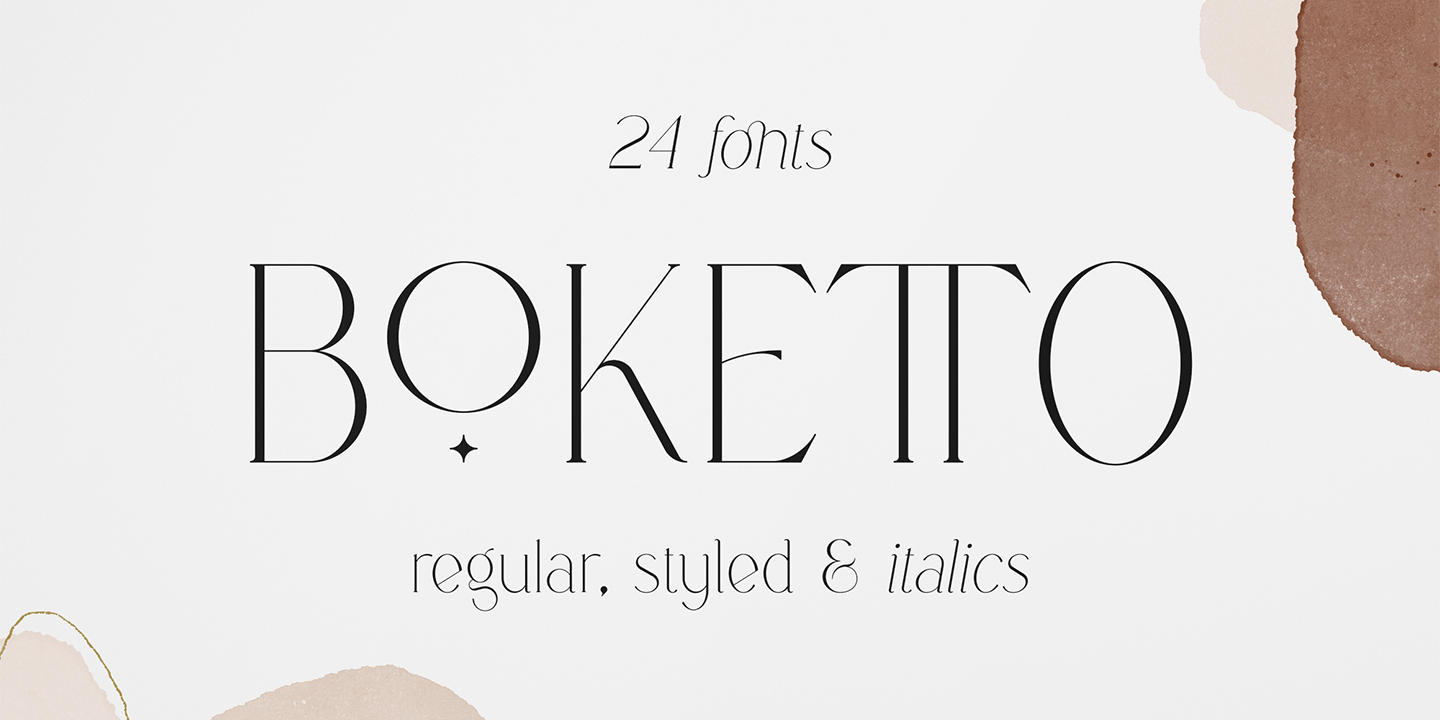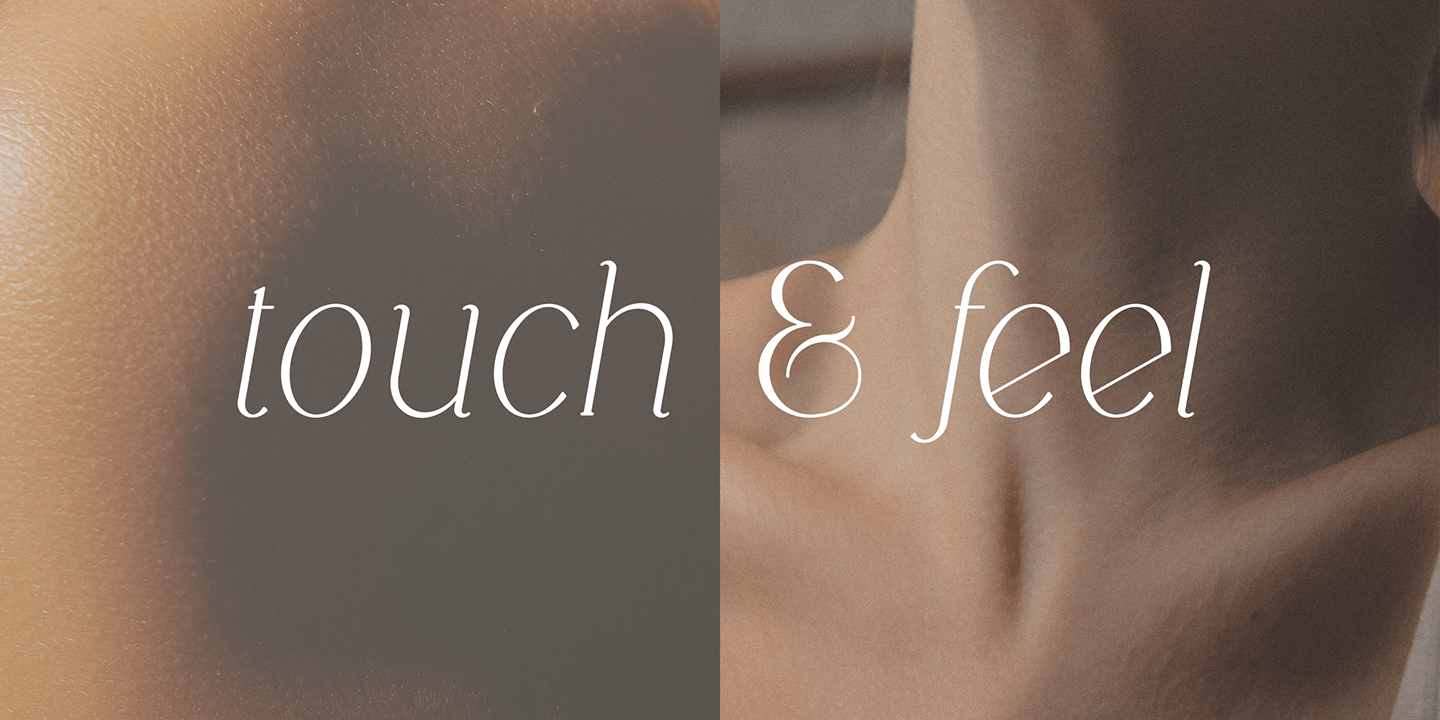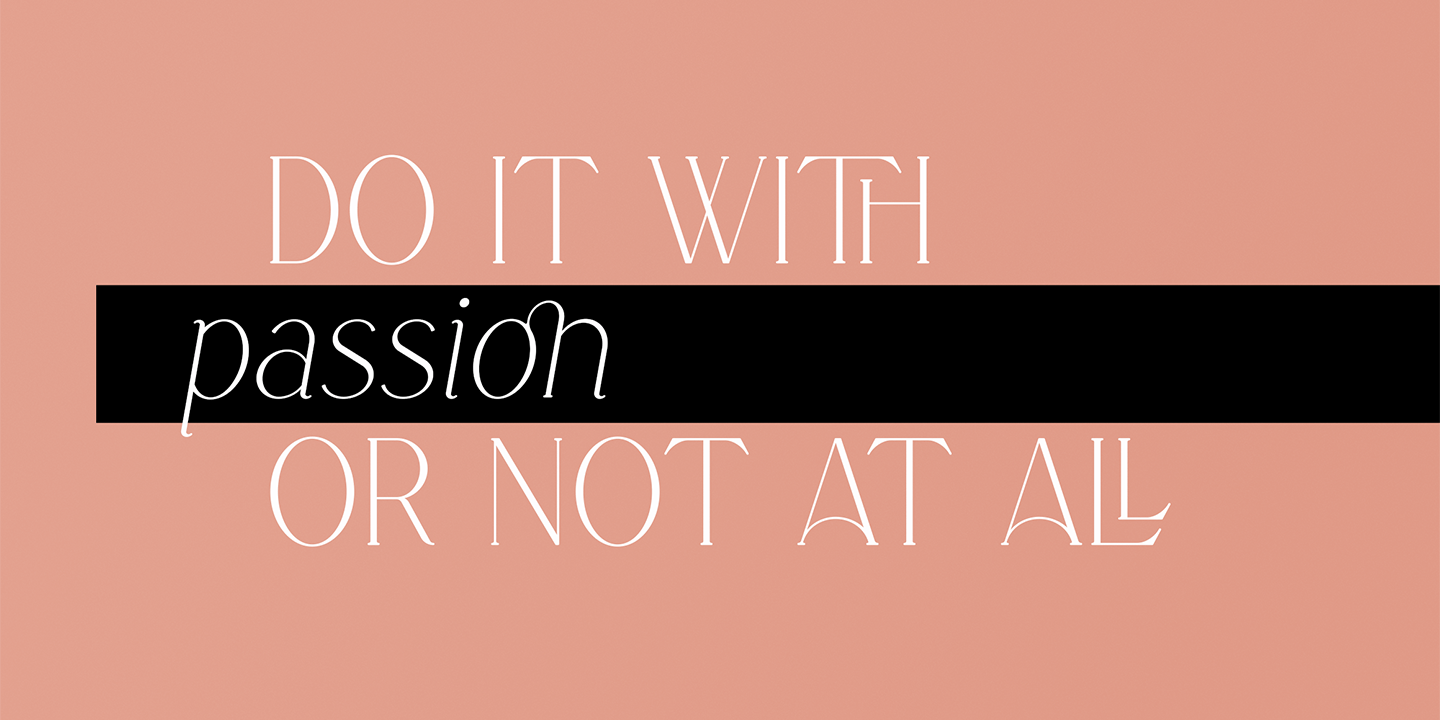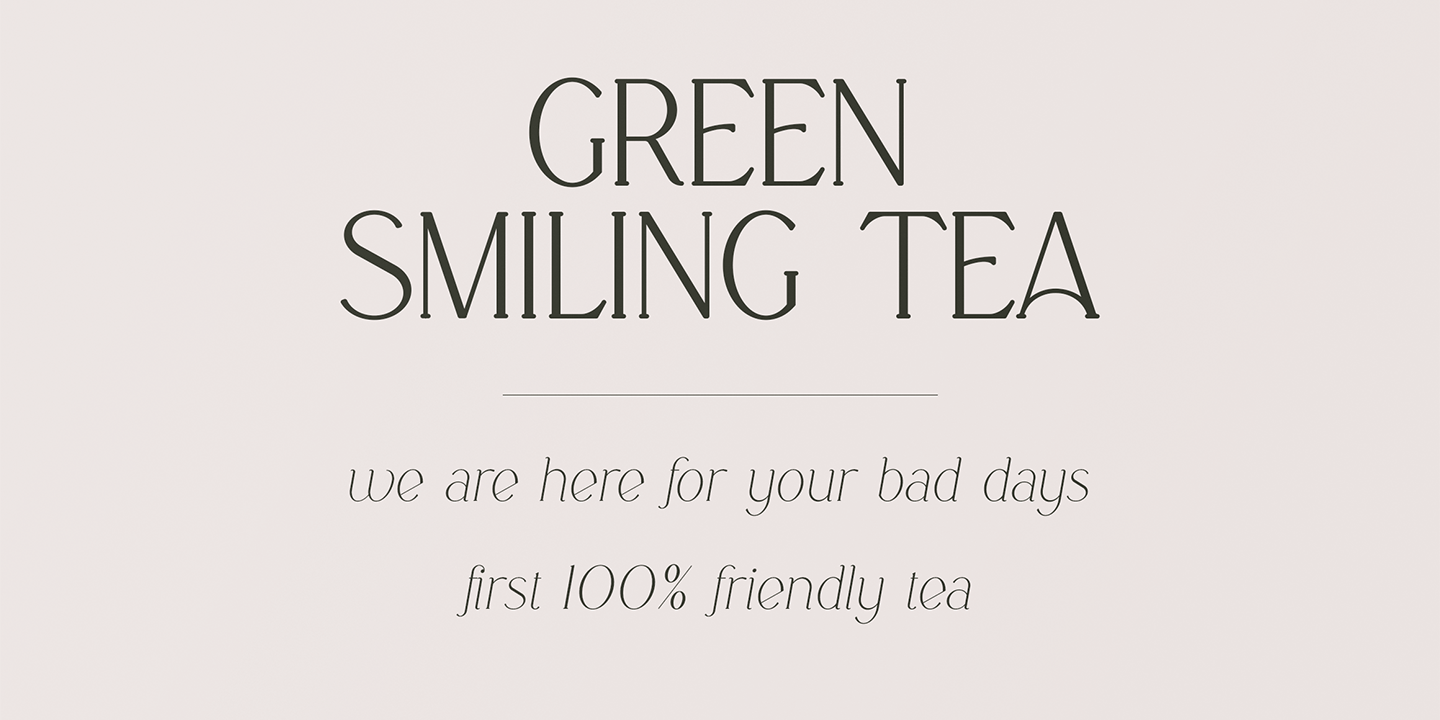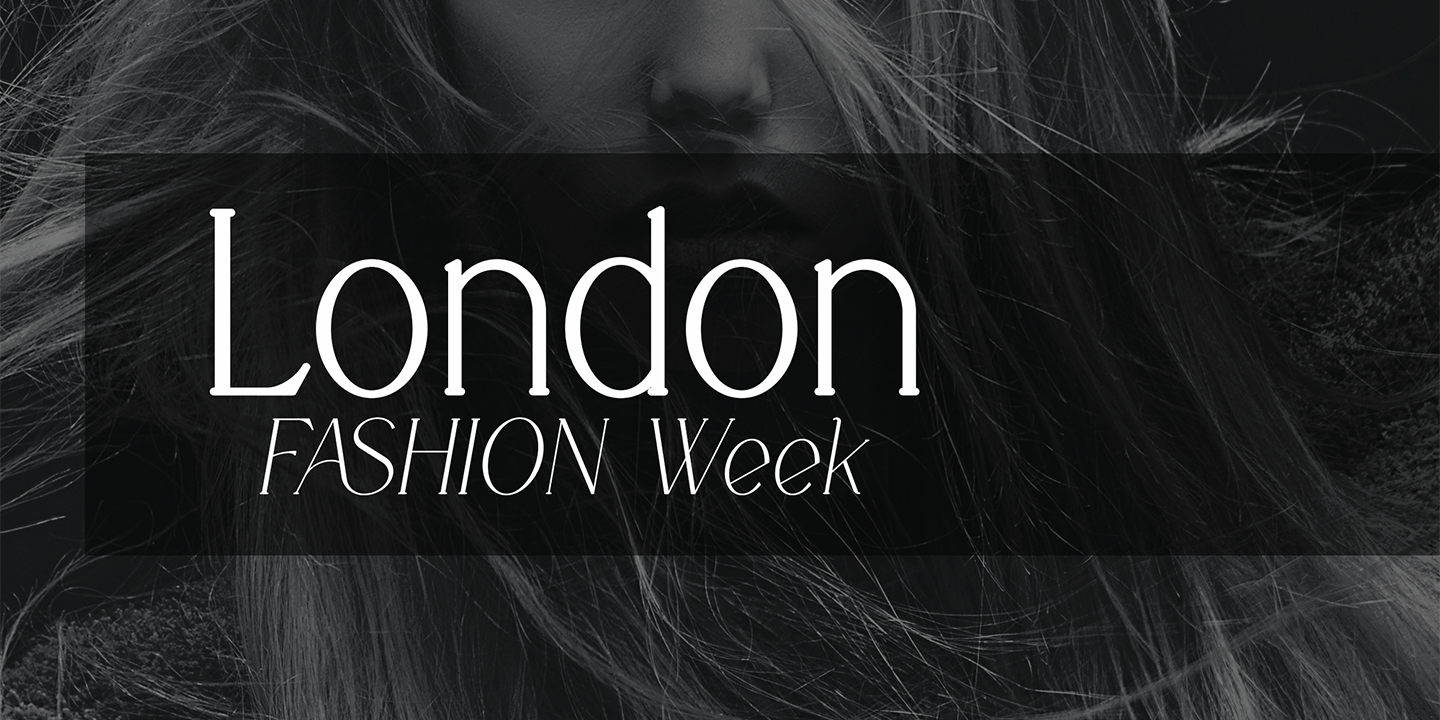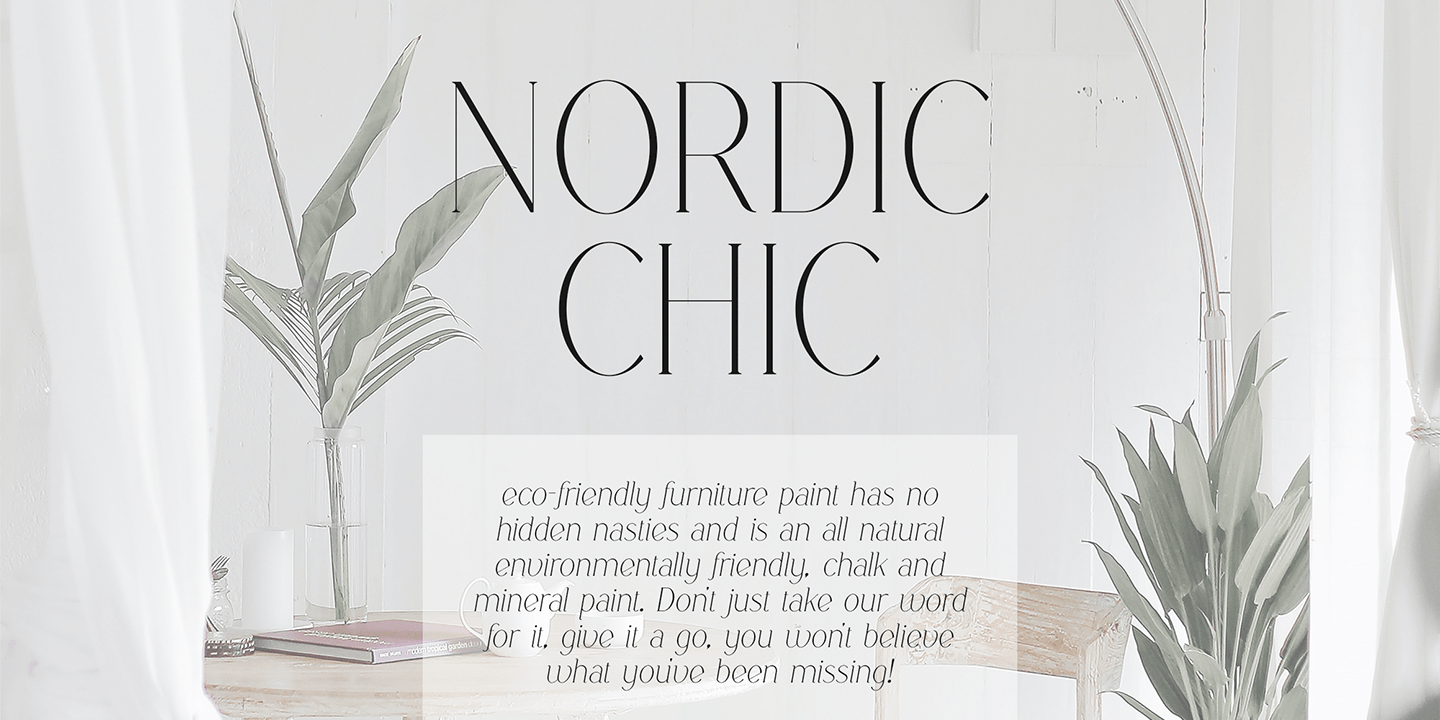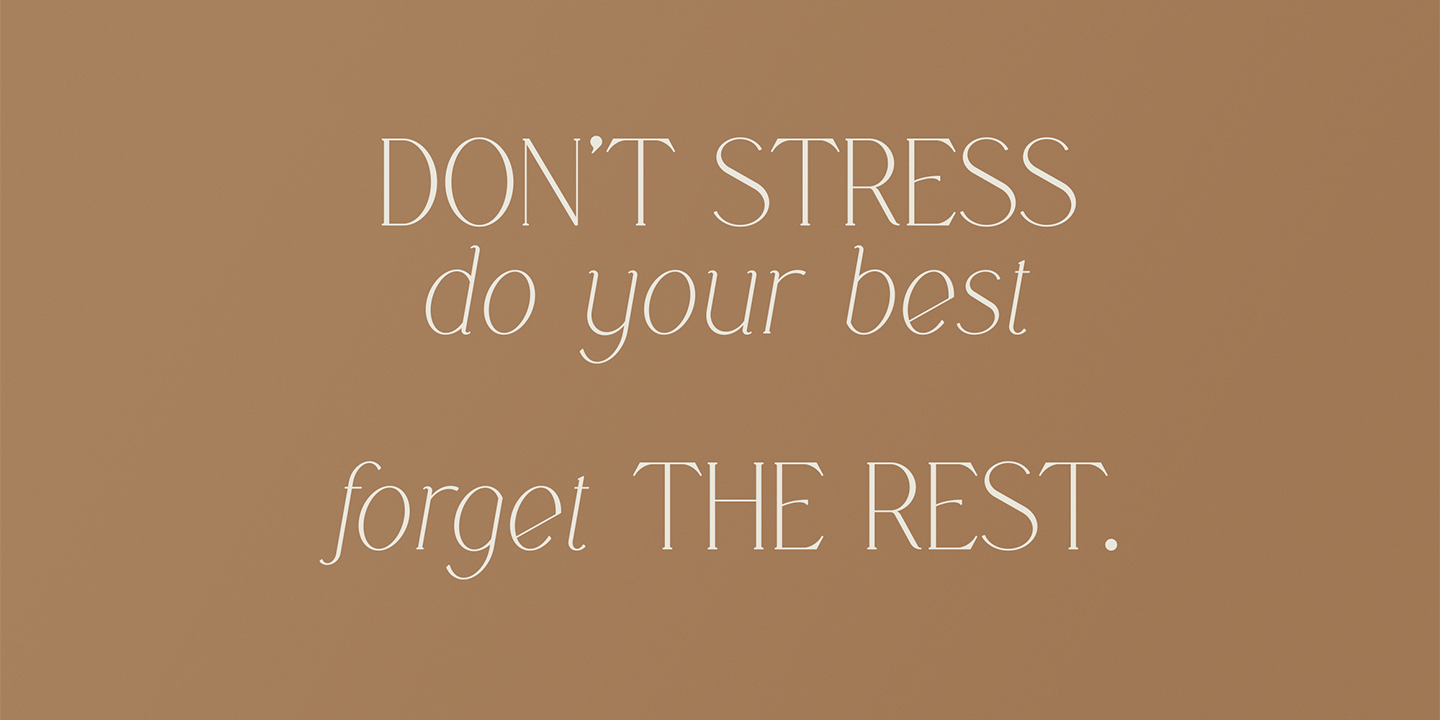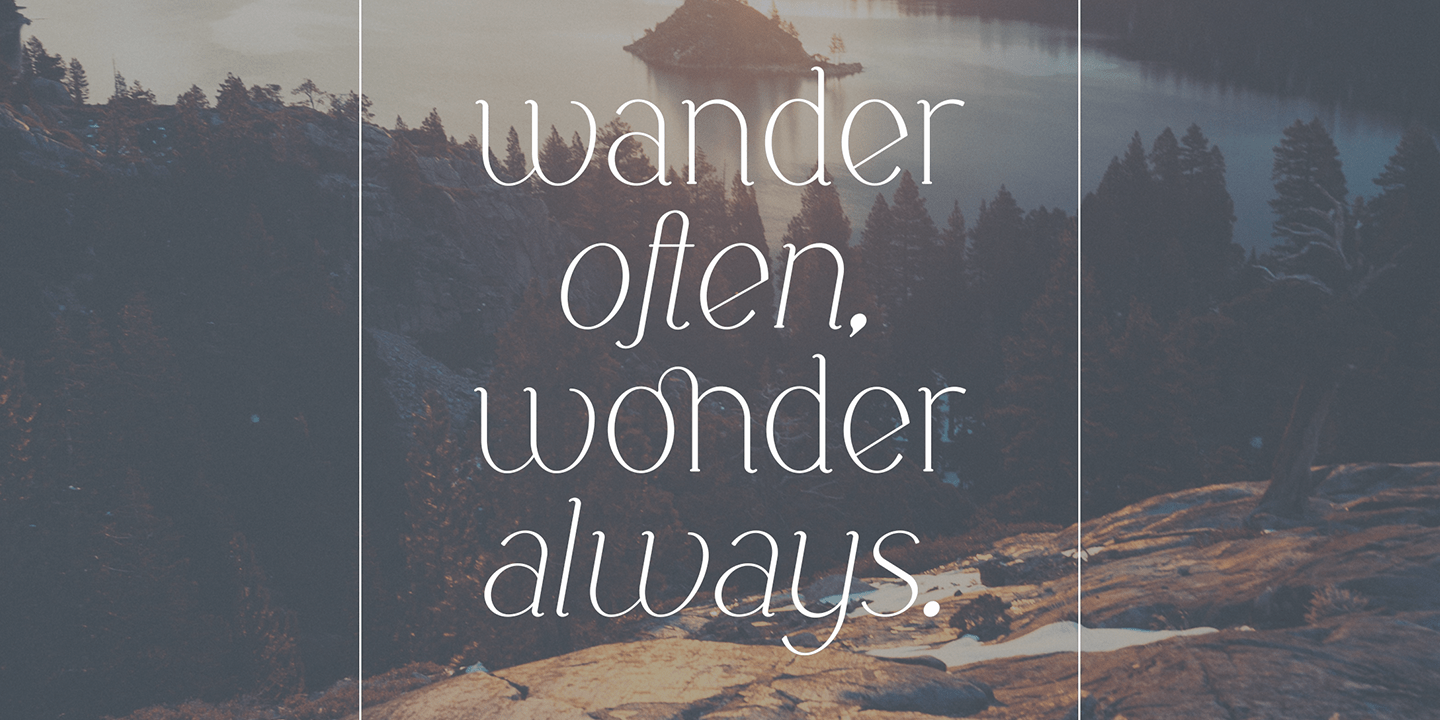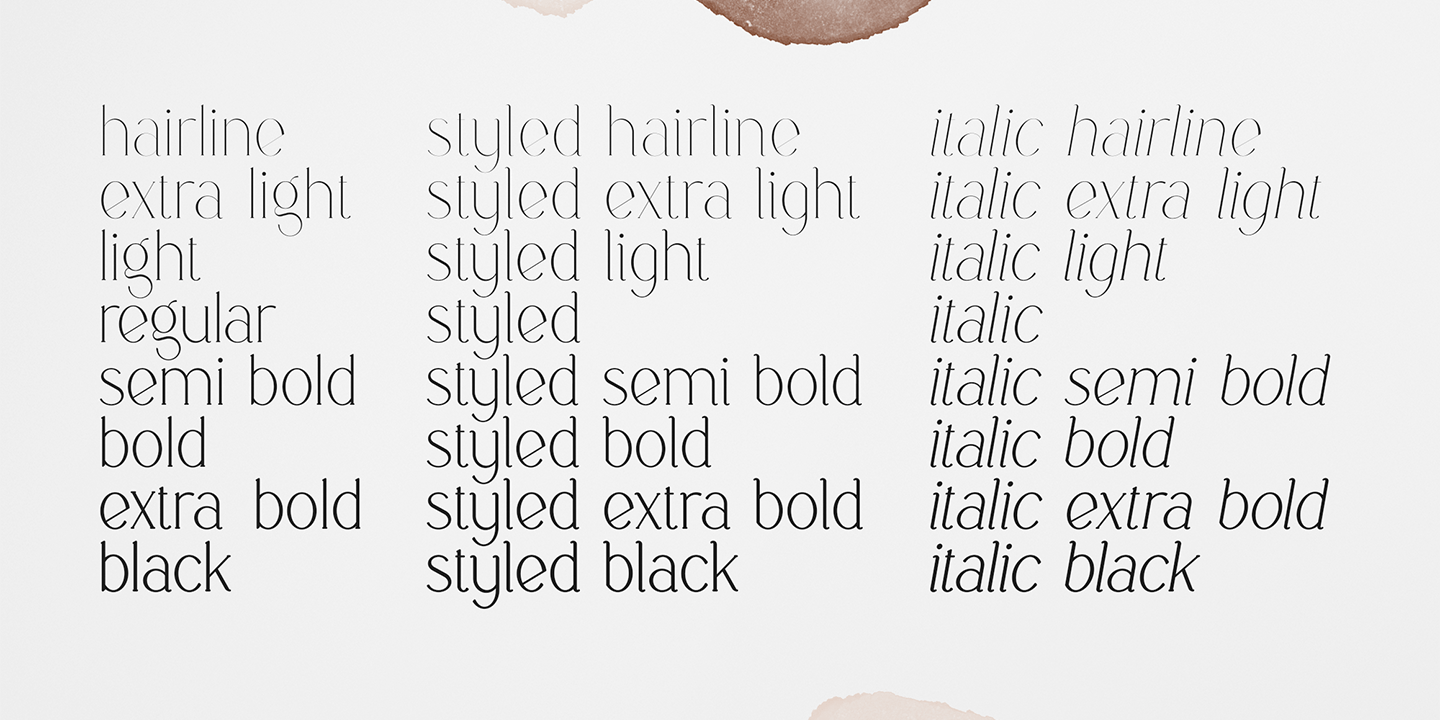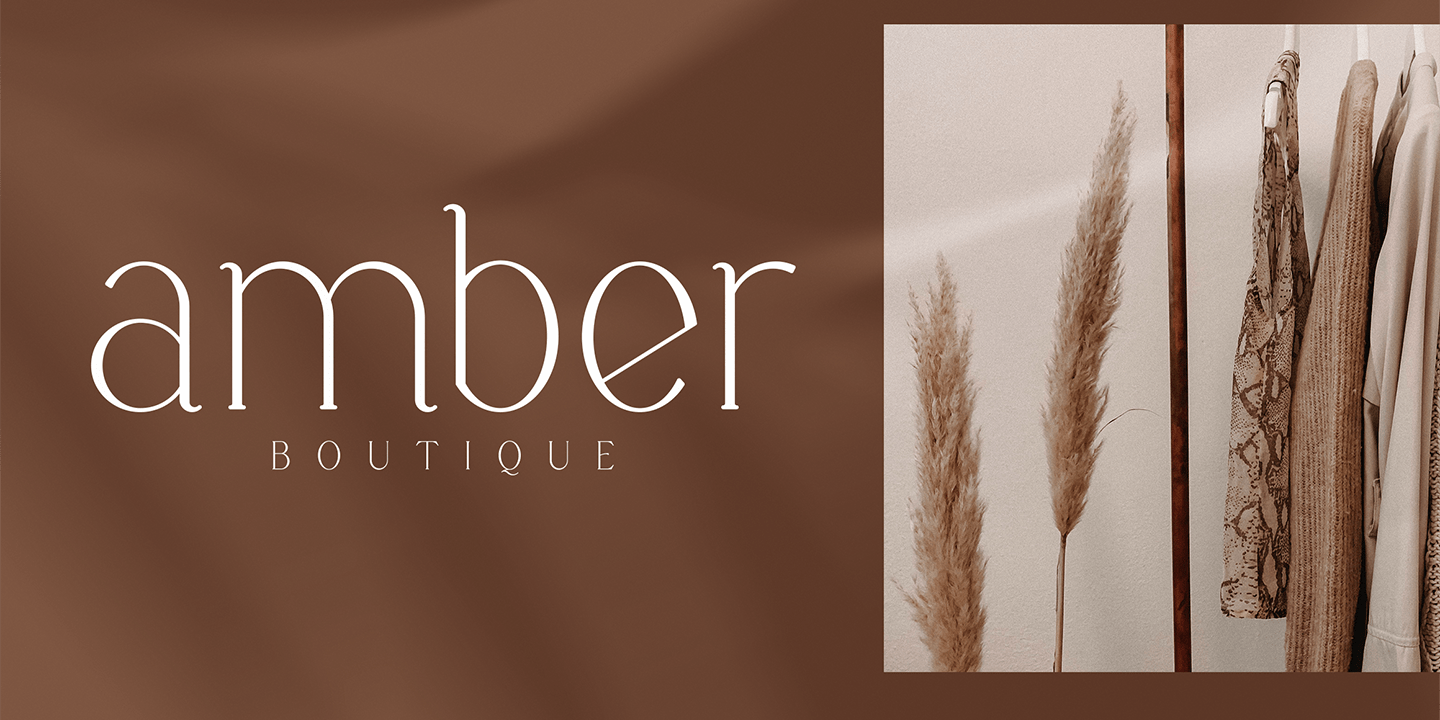
Boketto
Font Family by VP Creative Shop
Boketto is elegant and versatile typeface loaded with 24 font styles (regular, styled and italics) 87 languages support, alternate and ligature glyphs to make you typography truly unique!
FEATURES
- Uppercase, lowercase, numeral, punctuation & Symbol
- ligature glyphs
- alternates
- Regular ( hairline, extra light, light, regular, semi bold, bold, extra bold, black )
- Styled ( hairline, extra light, light, regular, semi bold, bold, extra bold, black )
- Italic ( hairline, extra light, light, regular, semi bold, bold, extra bold, black )
- Multilingual support - 87 languages